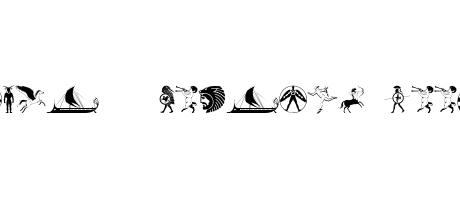
Mythical
Mythical & Hoplite Noodgies is a bold, minimalist font depicting ancient Greek and possibly other mythological figures and symbols. Each character is a small, stark black silhouette of a warrior, creature (like a centaur), or vessel, creating a unique and visually striking alphabet. Its style suggests strength and history.
Mythical & Hoplite Noodgies